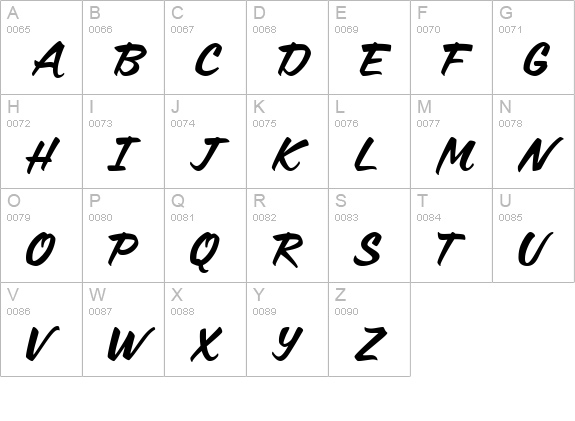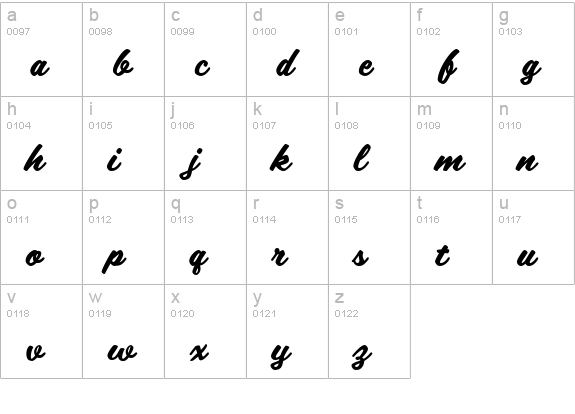
ScriptoramaTradeshowJF Font Details
Introducing ScriptoramaTradeshowJF, a captivating and sophisticated font that effortlessly merges elegance with modernity. This exquisite typeface is crafted with meticulous attention to detail, resulting in a truly remarkable design that is bound to leave a lasting impression. ScriptoramaTradeshowJF boasts a unique blend of flowing curves and sharp angles, creating a perfect balance between grace and strength. Its letters are meticulously crafted to evoke a sense of refinement and style, making it an ideal choice for projects that require a touch of sophistication. With its versatile nature, ScriptoramaTradeshowJF is perfect for a wide range of applications. Whether you are designing a logo, creating an invitation, or crafting a headline, this font will effortlessly elevate your work to new heights. Its versatility allows it to be used in both digital and print mediums, ensuring that your message will always be conveyed with the utmost elegance. One of the most remarkable features of ScriptoramaTradeshowJF is that it is freely available to download at FontsMarket.com. This means that you can enhance your projects with this exceptional font without any financial constraints. The ease of access to this font allows you to unleash your creativity without any limitations, ensuring that your designs truly stand out from the crowd. In conclusion, ScriptoramaTradeshowJF is a font that embodies timeless beauty and contemporary sophistication. Its seamless blend of elegance and modernity makes it a versatile choice for any design project. And the fact that it is freely available to download at FontsMarket.com ensures that it is accessible to all, empowering designers to create without boundaries. Elevate your designs today with ScriptoramaTradeshowJF and experience the power of true elegance.